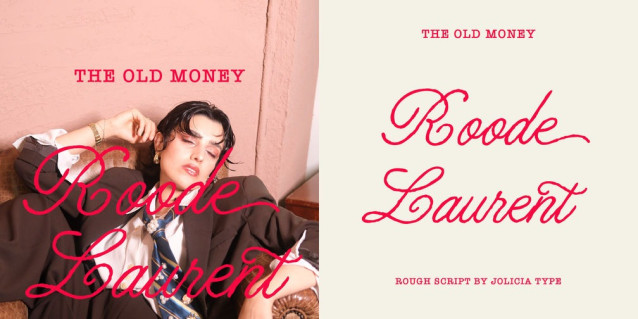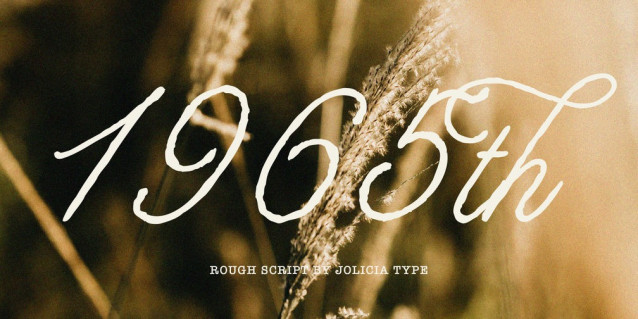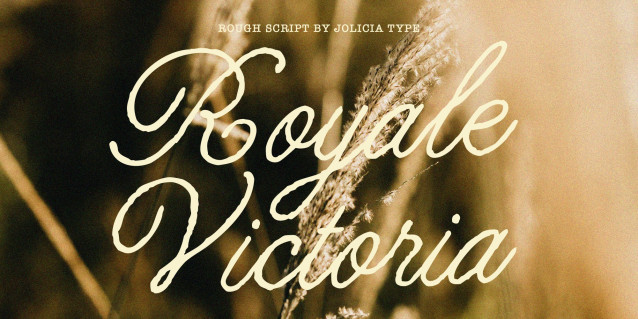
Royale Victoria Font
Royale Victoria Font is an expressive handwritten script font with rough
textured strokes and elegant handcrafted details. Inspired by
vintage sign painting and modern brush lettering, it features
flowing curves, organic movement, and stylish swashes.
Perfect
for branding, logos, packaging, wedding invitations, editorial
designs, and social media graphics, Royale Victoria delivers a
warm, authentic, and sophisticated handwritten appearance.